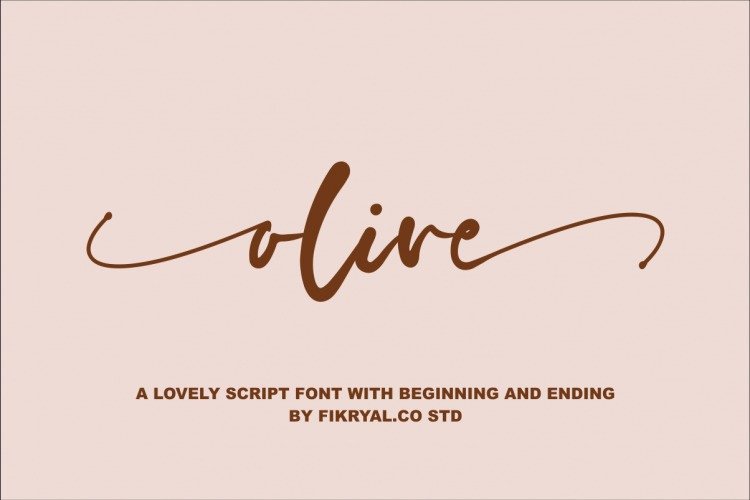
Olive Script Font
Hello Everyone! Olive Font is a lovely script font. It’s an elegant handwritten font. It has a thin modern calligraphy look – making it perfect for branding and digital designs. It’s a new modern & stylish handwritten font.
I’ts Perfect for logo,branding, invitation, tittle, wedding designs, social media posts, advertisements, product packaging, product designs, label, photography, watermark, special event,magazine,web design,etc.